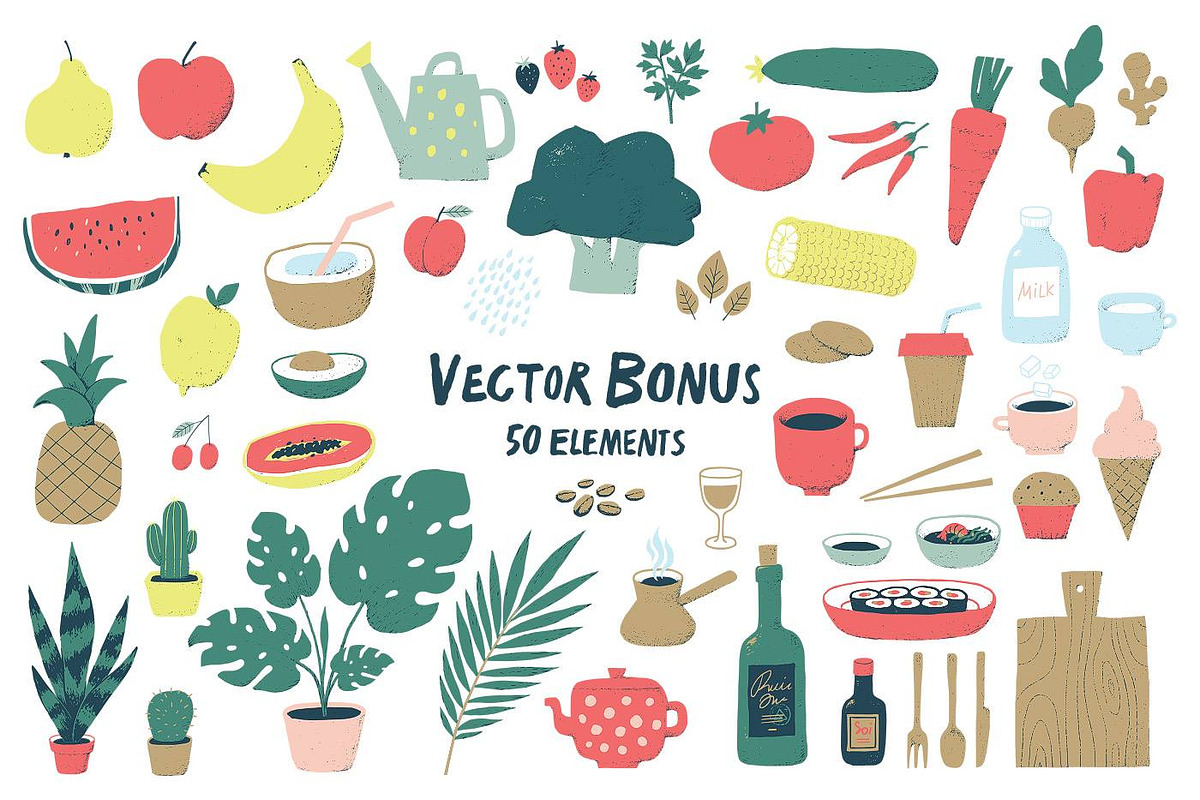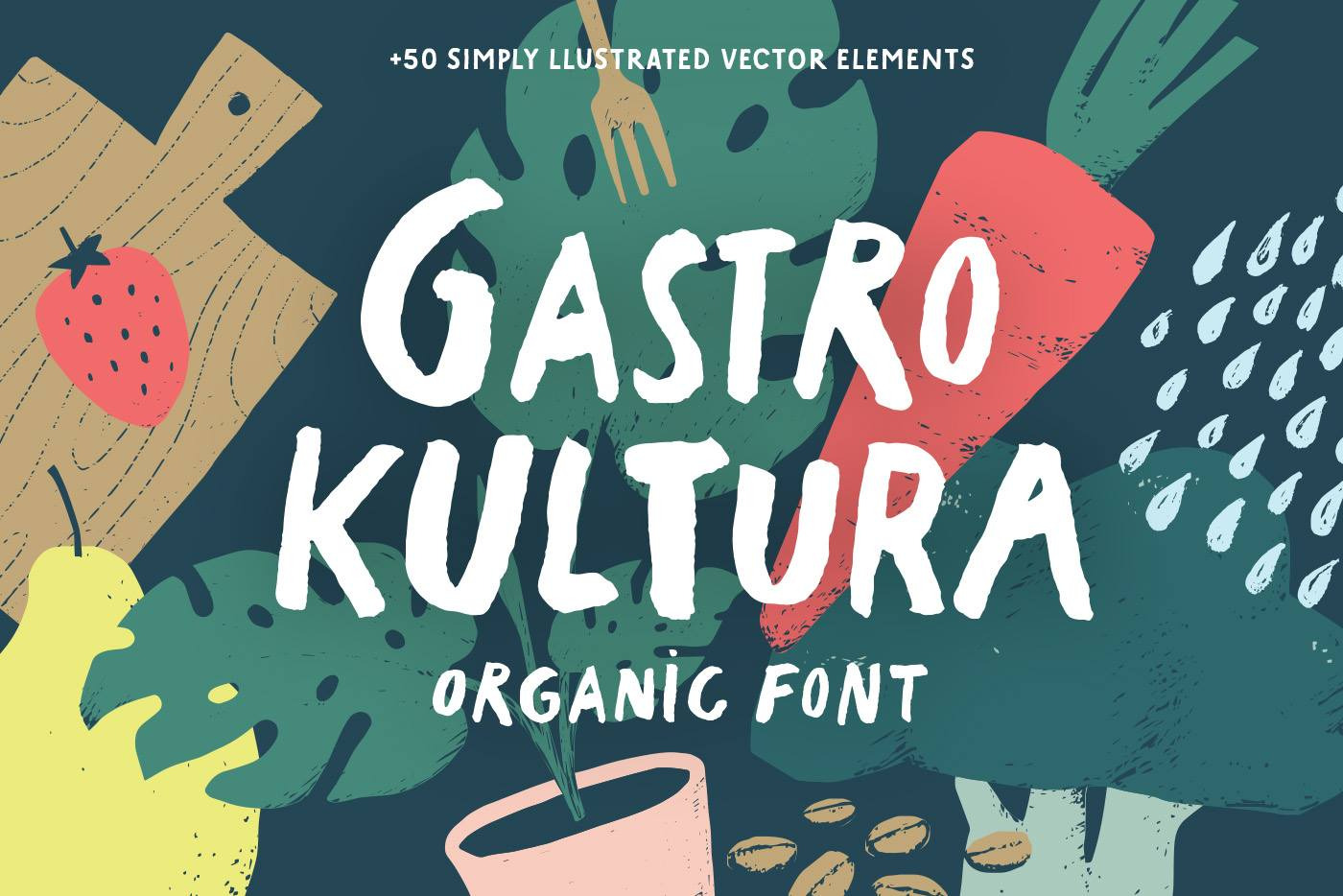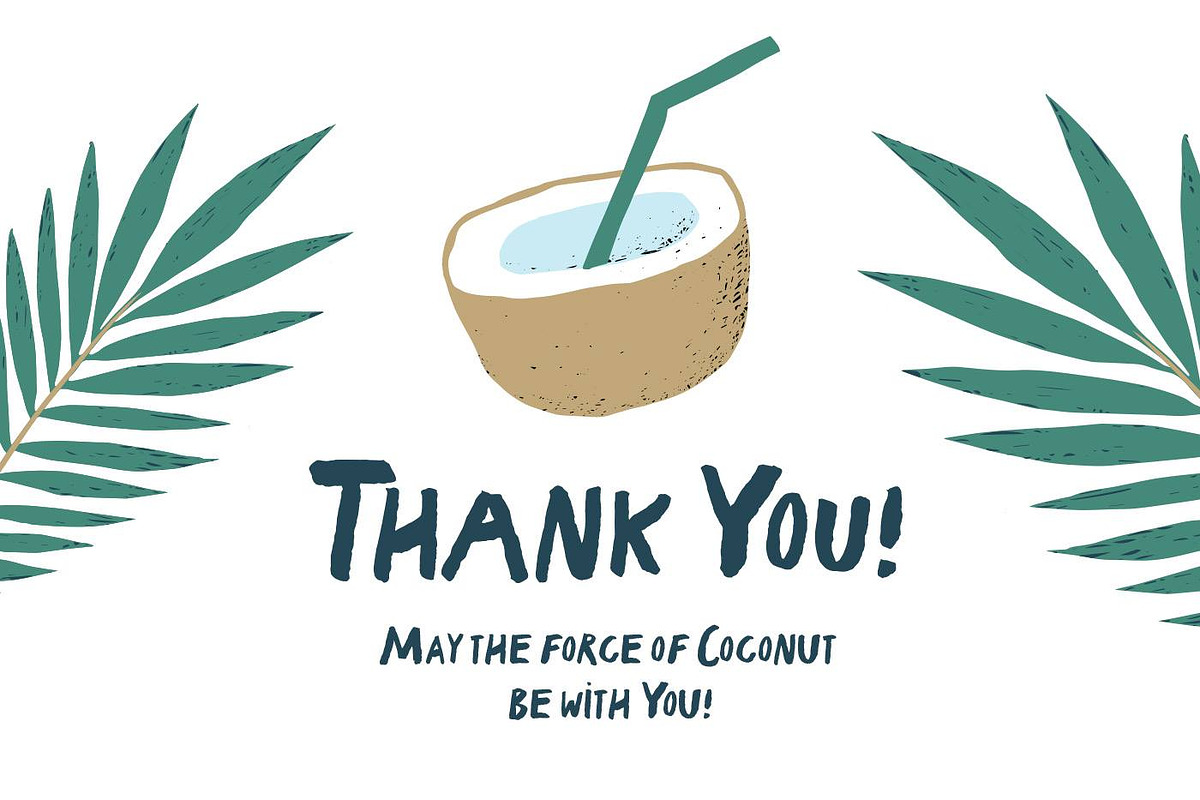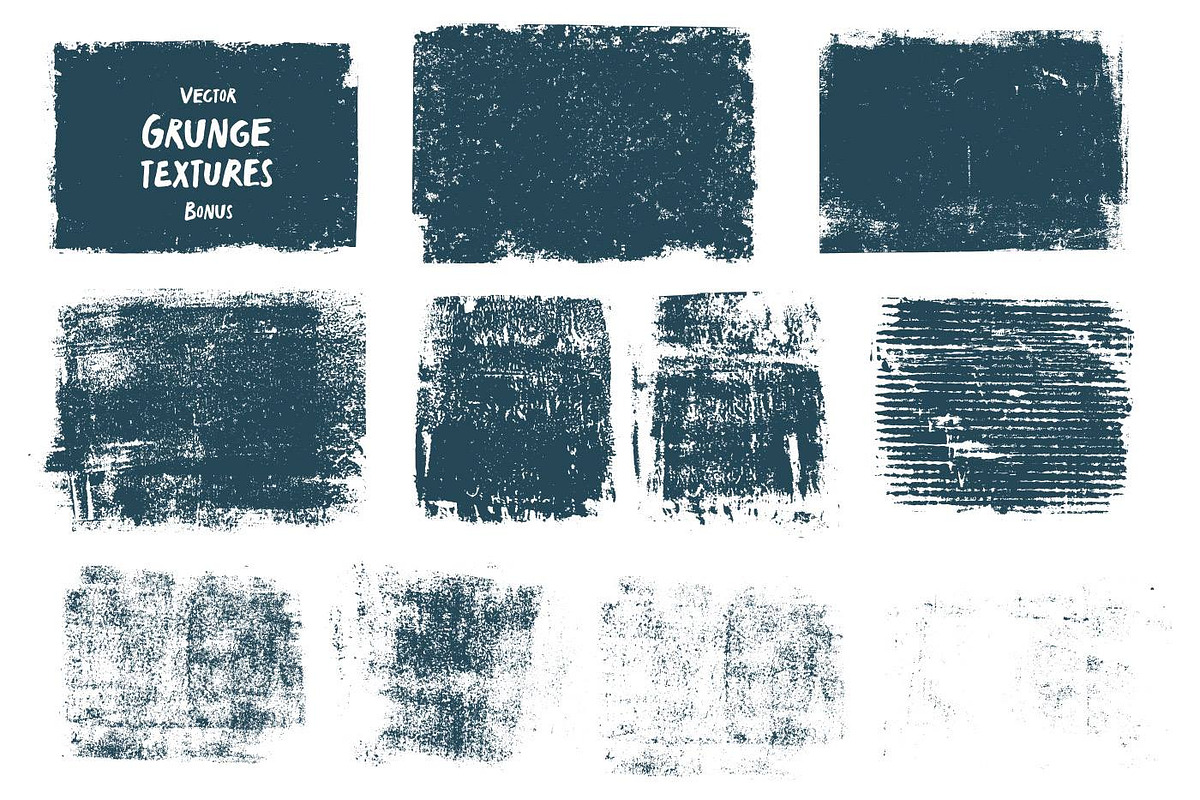
Gastro Kultura Font + Bonus
Gastro Kultura Font + Vector Set Bonus
This font captures the feeling of taking a brush and writing freely — without worrying about precision or making multiple attempts. There’s no pursuit of perfection or strict rules; each letter feels spontaneous and playful. It evokes a celebration of life, where everyone is happy regardless of how they appear.
This typeface is perfect for:
- Large headlines;
- Grocery store and coffee shop branding;
- Food and cosmetics packaging with a natural, handmade feel;
- Book covers;
- Children’s products.
Thanks to the many alternate characters, you can avoid repetition — making your text look more like custom lettering than a standard font. Just use combinations like a.2, a.3, a.4, b.2, b.3, b.4, etc.